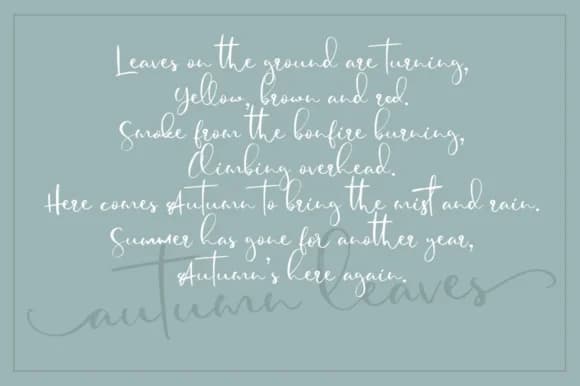
1 / 7About Red Wings Font
You're designing a wedding invitation suite and you need handwriting that feels genuine without veering into amateurish territory. Red Wings, a script from BennyDesigns, hits that sweet spot. The font captures that fluid, pen-to-paper quality formal stationery demands, with elegant swashes that add character and movement without overwhelming the layout.
This one works brilliantly for wedding invitations and reply cards, but it shines just as well in branding custom cosmetics lines, designing restaurant menus with real personality, and creating personalized packaging labels. The letterforms have serious movement, so scaling it up for a logo or announcement graphic gives it an almost calligraphic presence. Use it at smaller sizes on menu cards or announcement graphics and the forms stay crisp and legible, giving you genuine flexibility across different scales.
The swashes sit in that sweet spot between restrained and generous, so you have comfortable room to position text without the design fighting back. Since it's built from actual handwritten characteristics, the weight and flow feel natural and intentional rather than digital. You can trust it on special stationery projects, custom label designs, and anywhere you need warmth with sophistication. Grab Red Wings from Creative Fabrica and add it to your collection.
Red Wings Font is a script font that shines as a display or heading face. Pair it with a clean sans-serif or serif font for body text β the contrast creates a clear hierarchy while the two styles stay balanced and easy to read.
Red Wings Font
by BennyDesigns